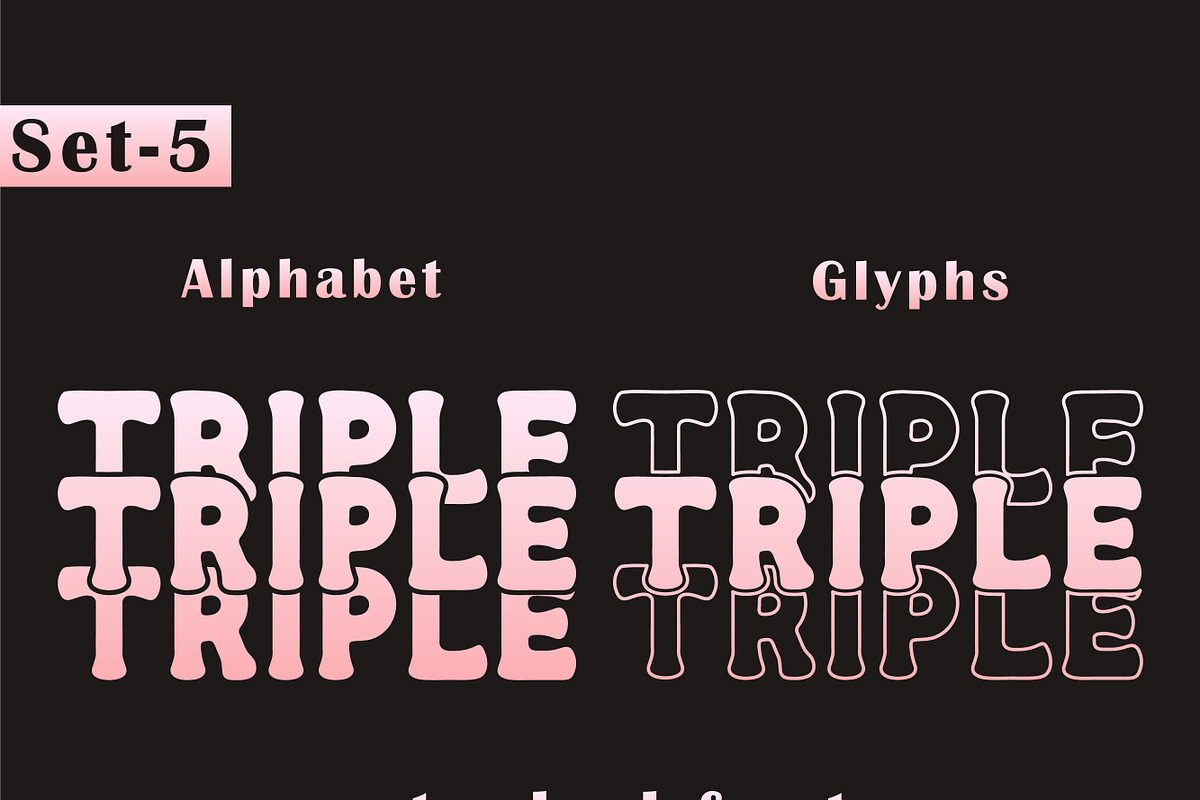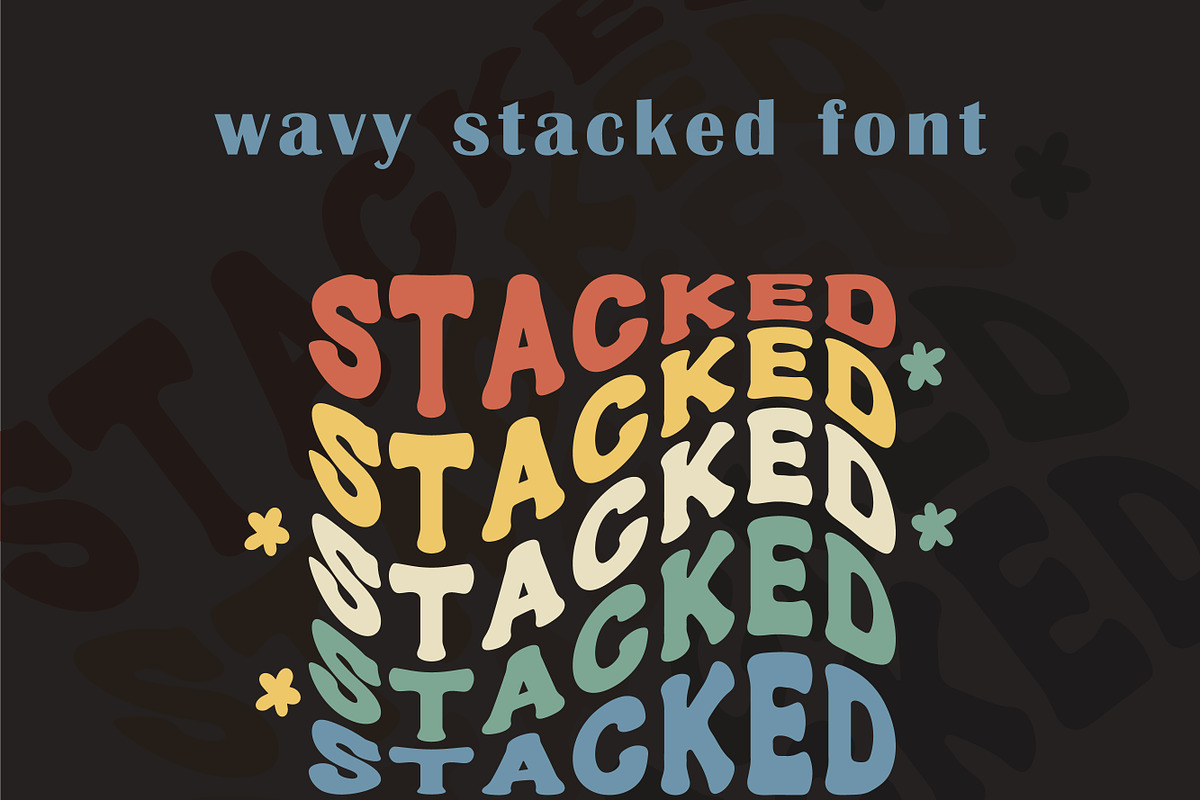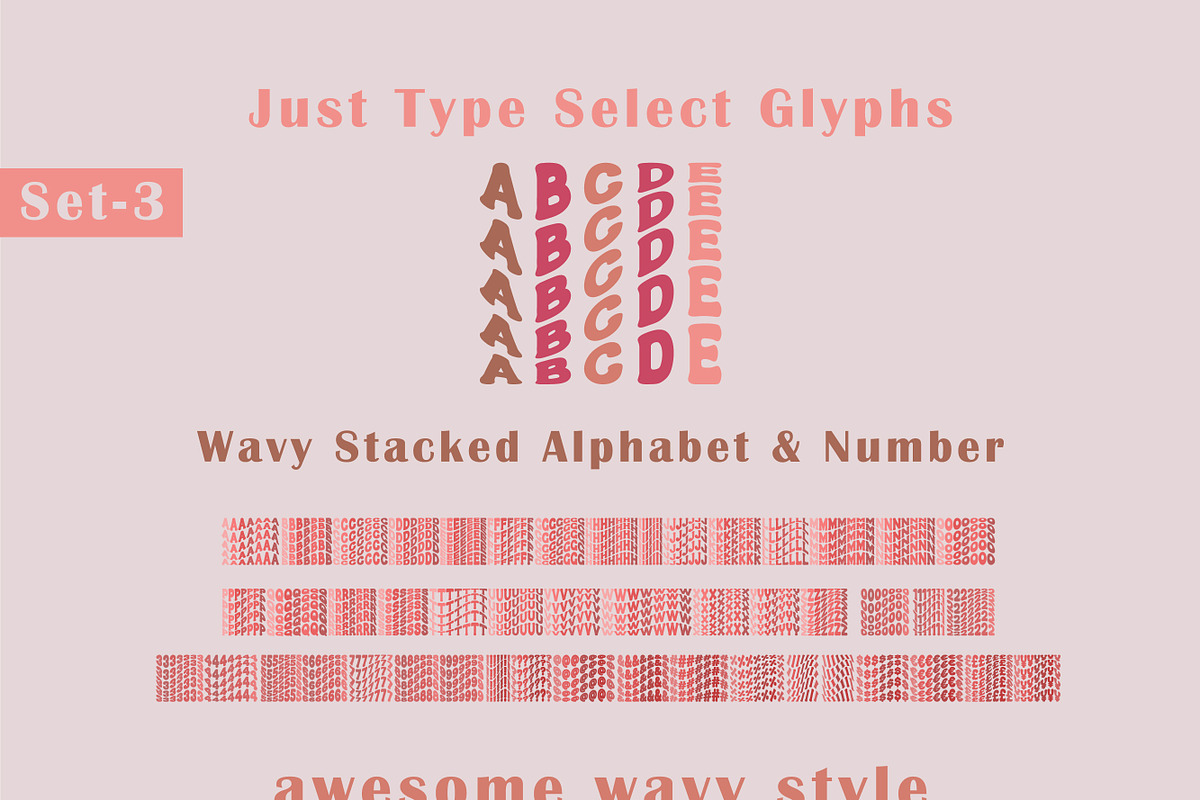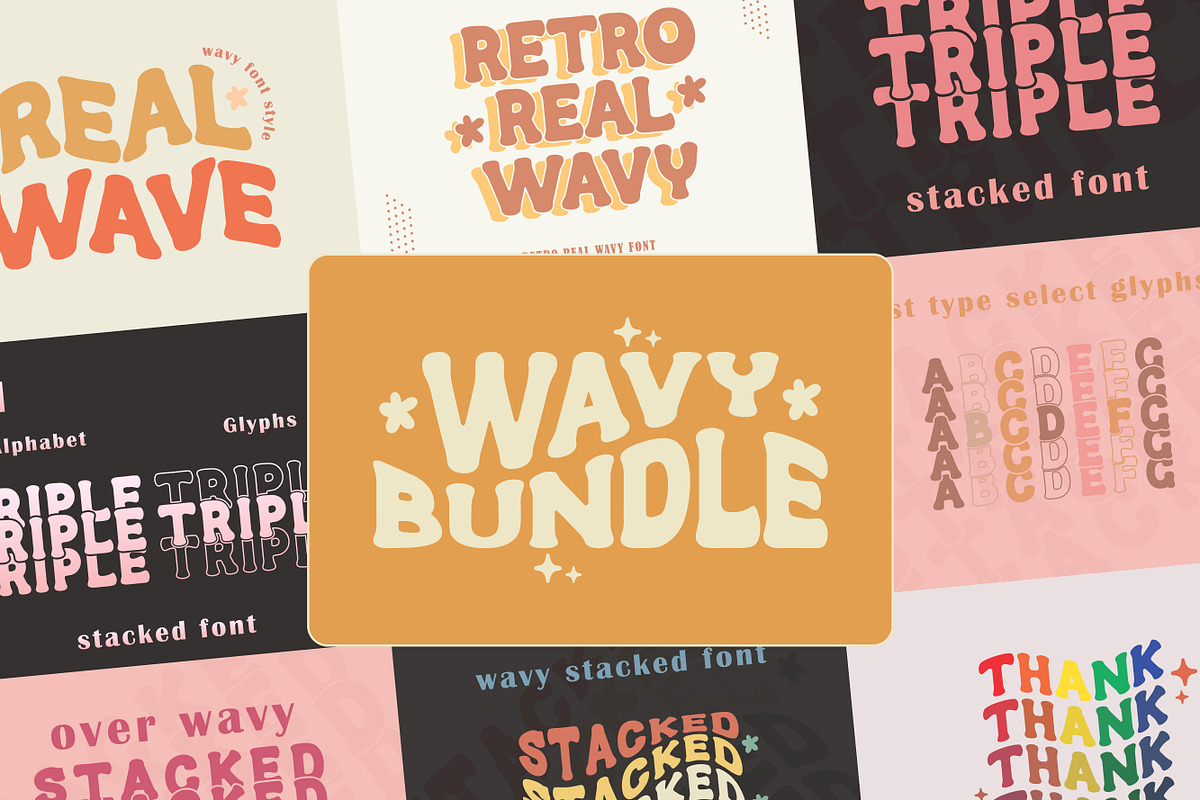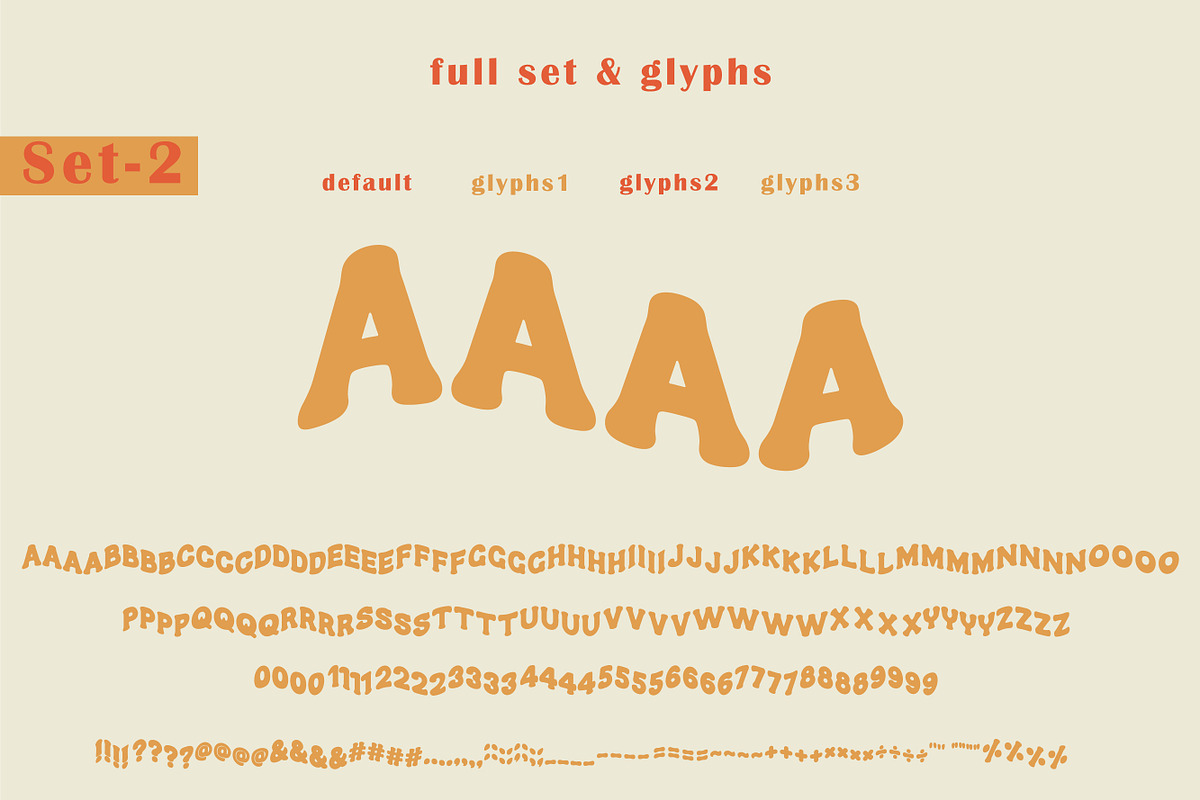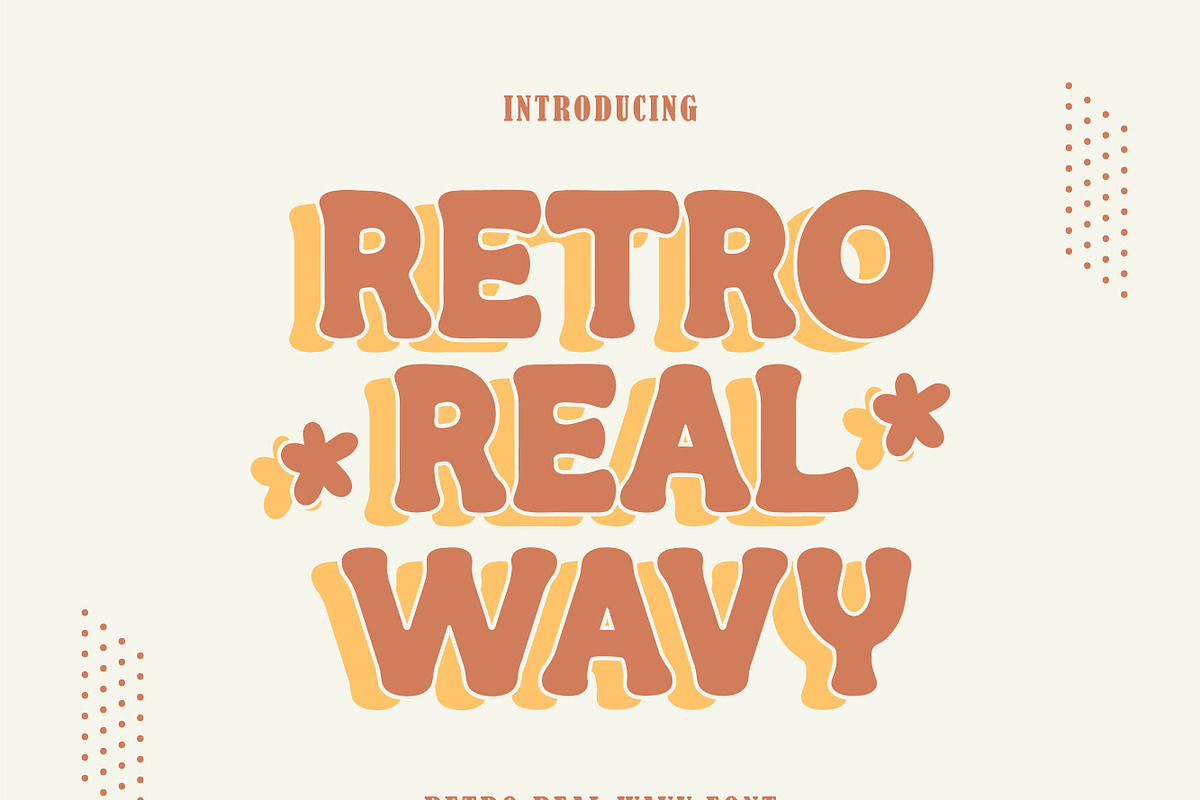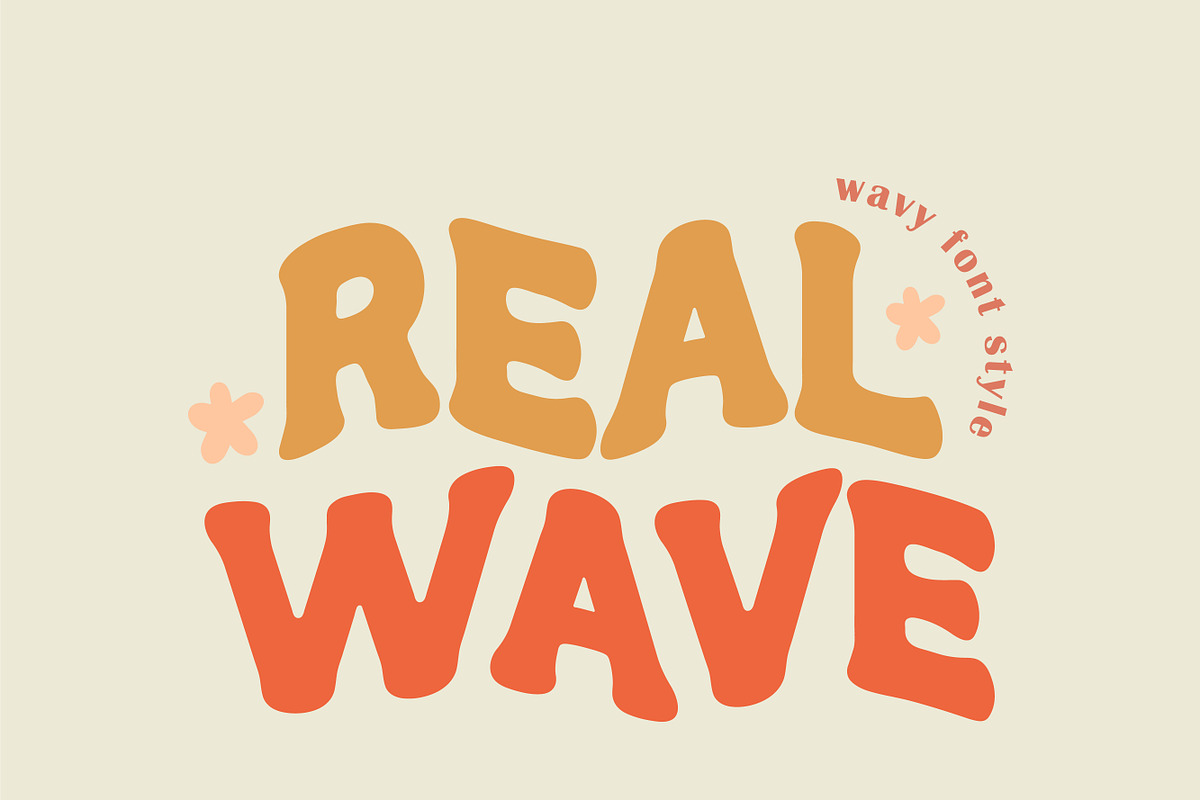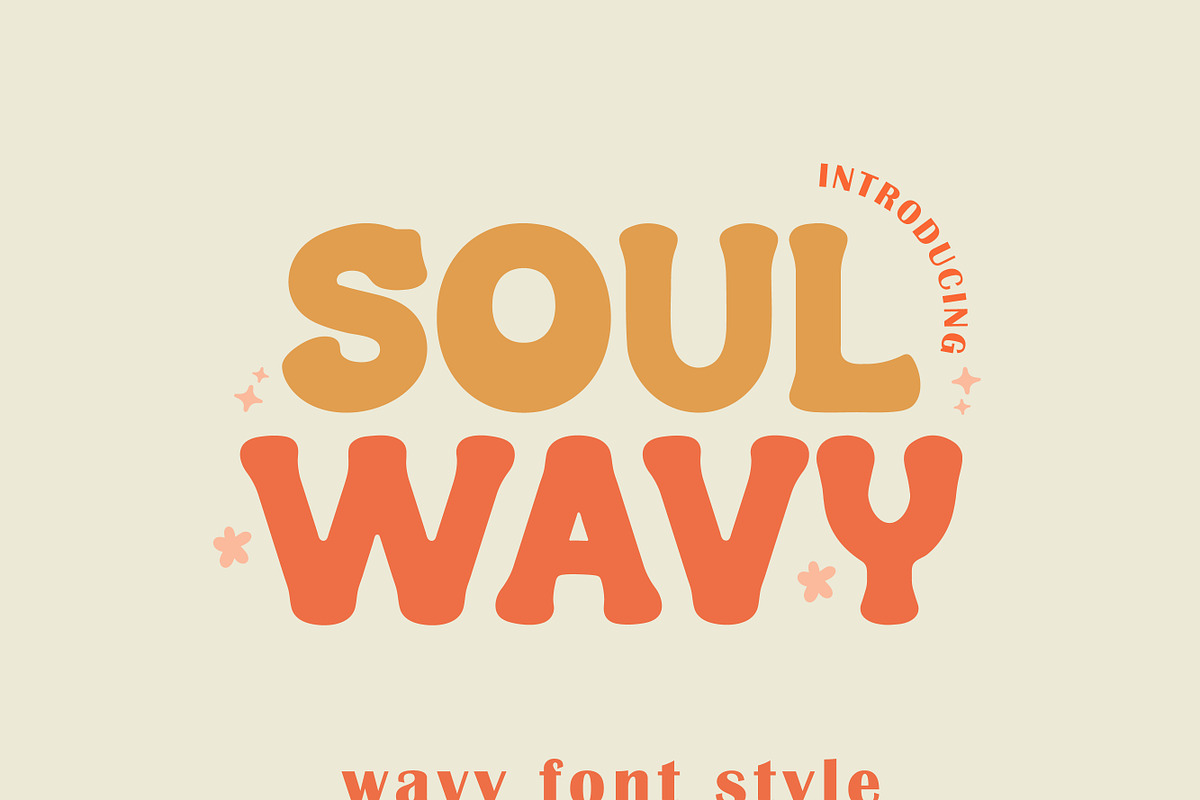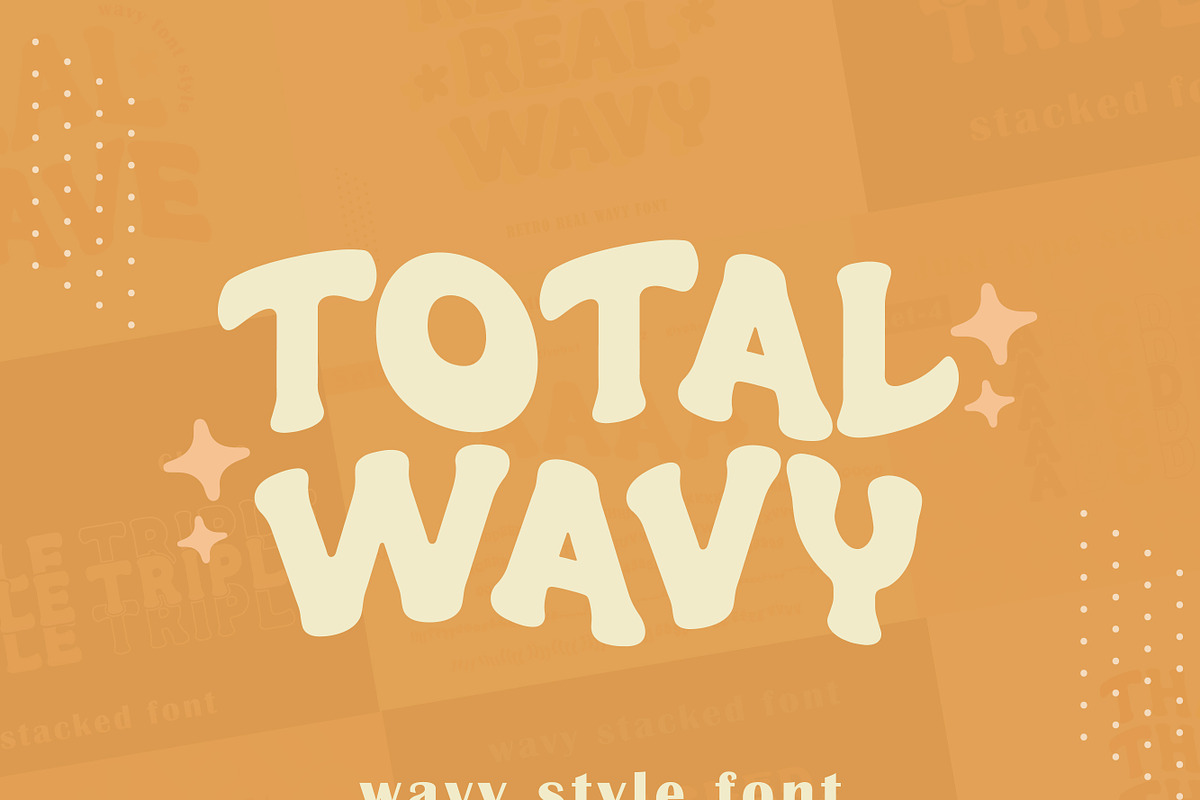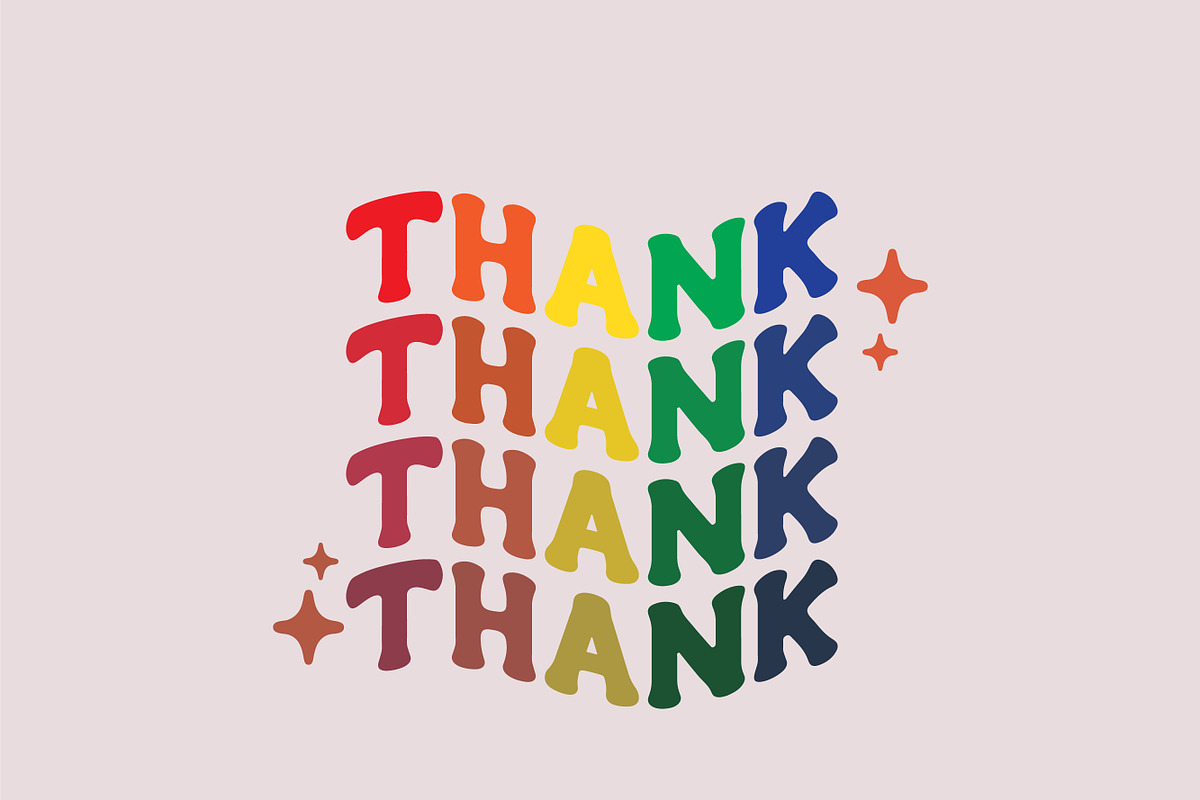
Wavy Stacked Bundle- Retro Font
Wavy Stacked Bundle – a trendy font style with a stacked effect and easy five font style With 7 unique glyphs at your disposal, create eye-catching and fun text designs that are perfect for everyone. Get creative and let the good times roll! thank you!